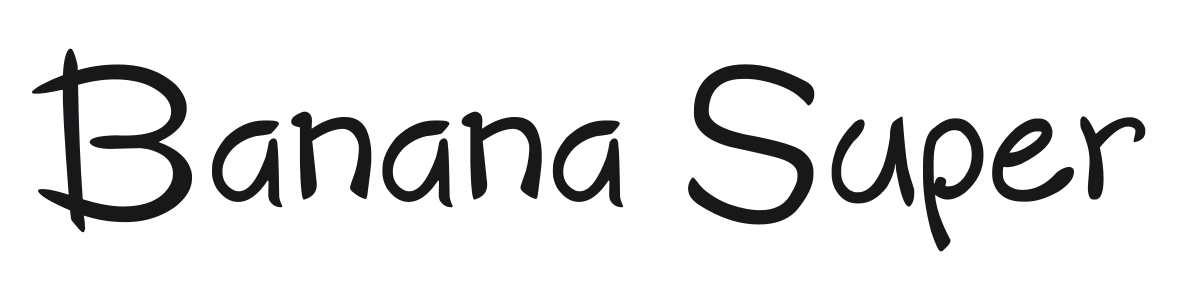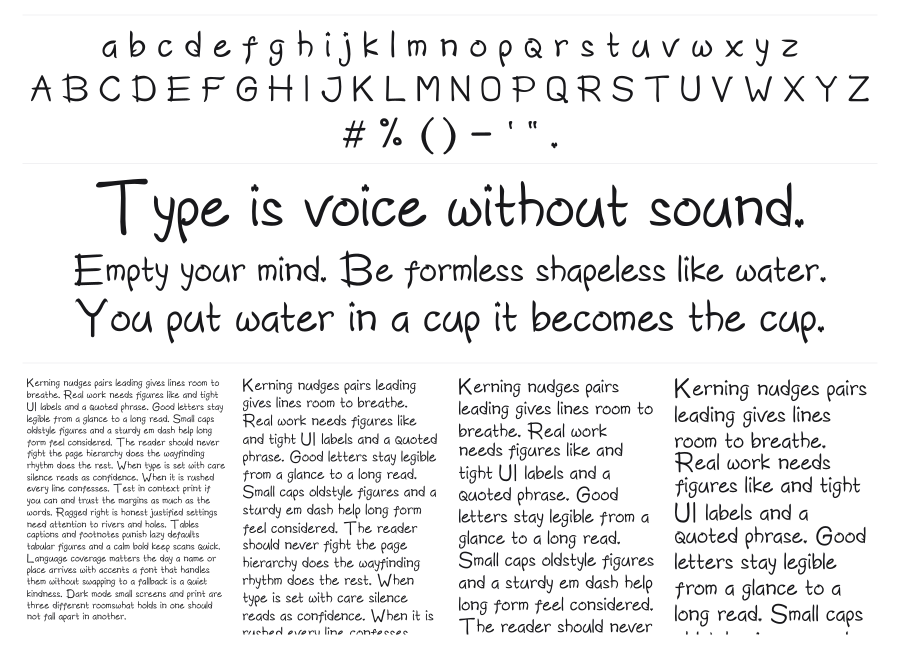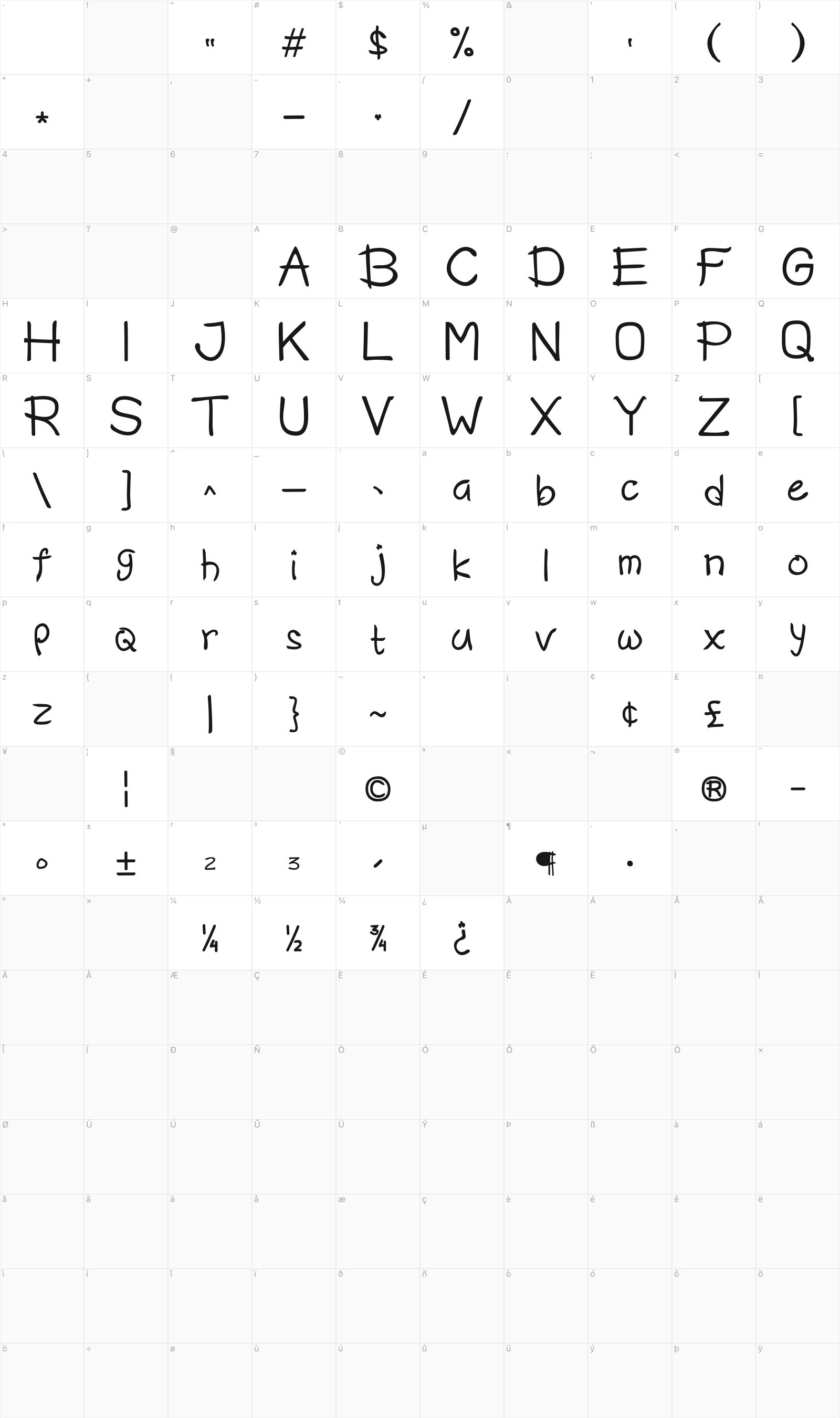
Banana Super
Banana Super is a casual handwritten font with a loose, spontaneous energy that feels like ink on paper. The letters vary subtly in angle and height, creating an authentic handcrafted texture without feeling sloppy. It suits logos, greeting cards, packaging, and anywhere a warm personal touch is needed.